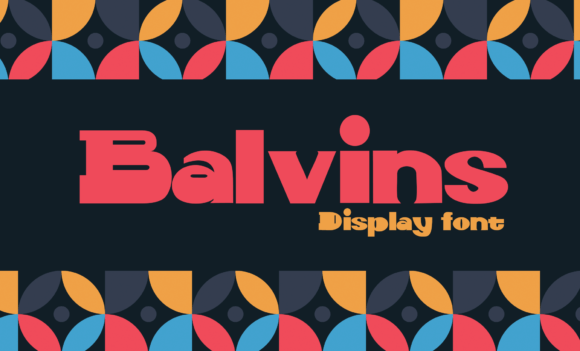
The Perfect Display Font for Your Next Design Project
Have you ever stared at a blank canvas, waiting for inspiration to strike? For designers, this moment is all too familiar. But what if we told you that the perfect font was just a click away? Introducing Balvins, the display font that’s about to revolutionize your design game.
Balvins Font is a masterclass in elegant typography, blending the classic styles of Swiss design with a modern twist. Its bold, stylized look is perfect for grabbing attention and making a lasting impression. Whether you’re creating eye-catching posters, thumbnails, or movie titles, Balvins is the perfect partner in crime. And with its ’90s vibe, you’ll be tapping into a nostalgic feel that’s still fresh and modern.
Balvins Font Key Features
- Font Family: Balvins Font is a sans-serif font family designed for various applications.
- Unique Characteristics: Balvins Font features a clean, modern design with a subtle rounded edge, making it suitable for corporate, tech, and creative applications.
- Character Set: The font family includes a comprehensive character set, including Latin, Cyrillic, and Greek alphabets, as well as various punctuation and symbol glyphs.
Designer Review: Balvins Font
Overall, I was impressed with the Balvins Font, but as with any font, it has its strengths and weaknesses. Let’s dive in and see what it has to offer.
- Unique Character**: The Balvins Font has a unique character that sets it apart from other fonts. It has a quirky, hand-drawn feel that can add a touch of personality to your designs.
- Good Legibility**: Despite its unique character, the font is still easy to read, even at smaller font sizes.
- Highly Customizable**: The font comes with a range of weights and styles, making it highly customizable for different design projects.
- Limited Language Support**: The Balvins Font may not support all languages, which can be a limitation for designers who need to work with multiple languages.
- Not Suitable for Body Text**: While the font is great for headlines and titles, it may not be the best choice for body text due to its unique character and limited legibility at smaller font sizes.
The Balvins Font is a great choice for designers who want to add a touch of personality to their designs. While it has some limitations, its unique character and high level of customization make it a valuable addition to any designer’s toolkit. Just be sure to use it judiciously and pair it with other fonts to create a balanced design.
Practical Application Guide for Balvins Font
Use Balvins Font for creative and modern designs, such as: